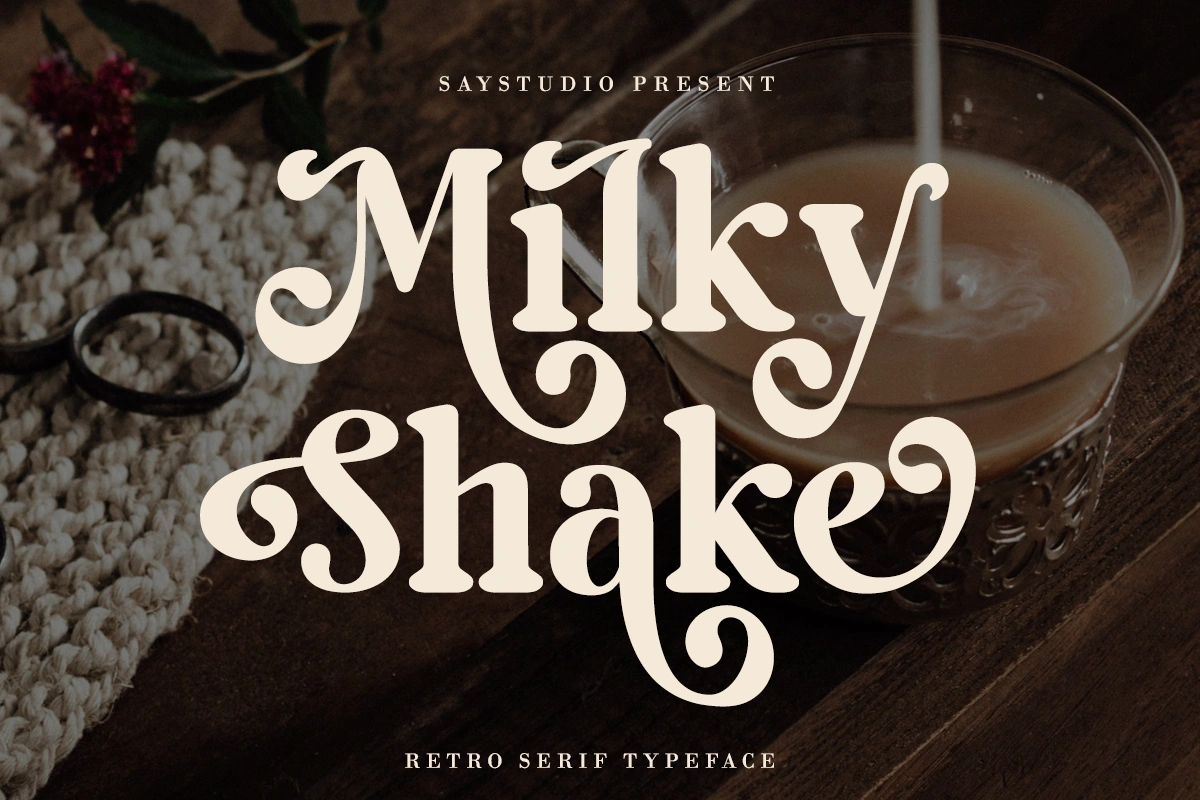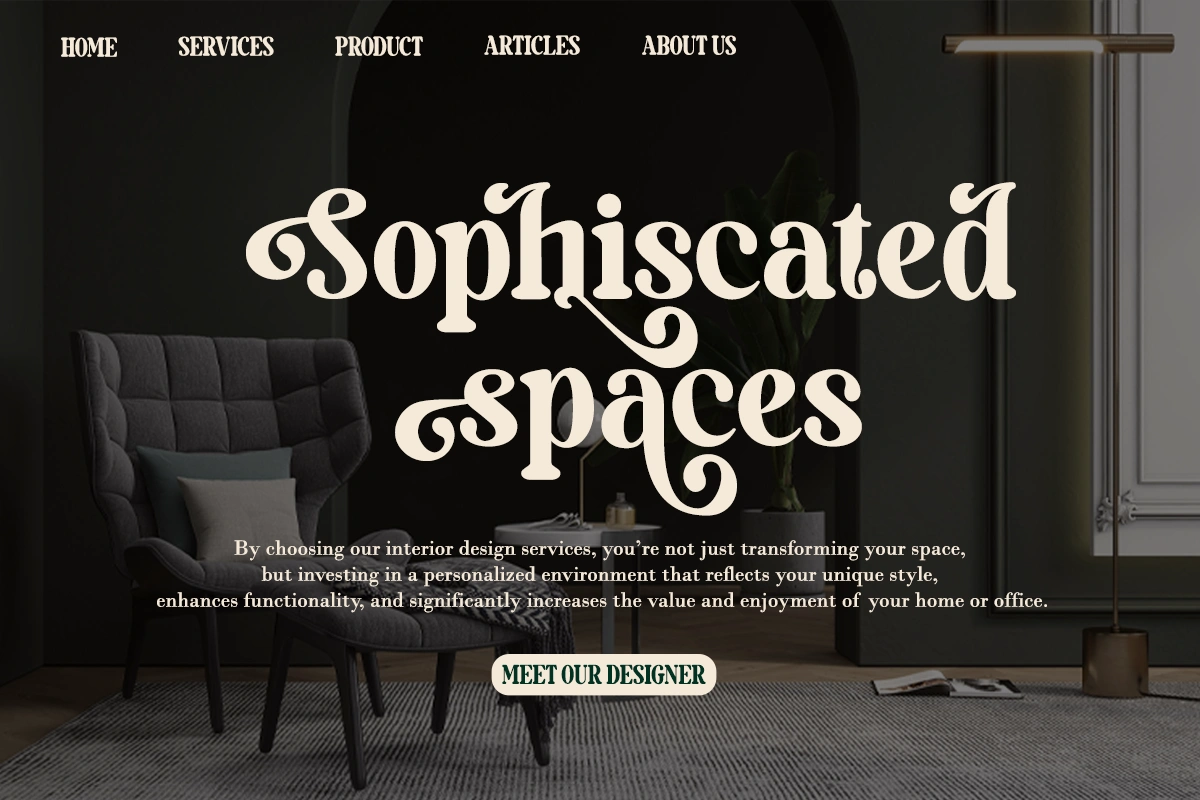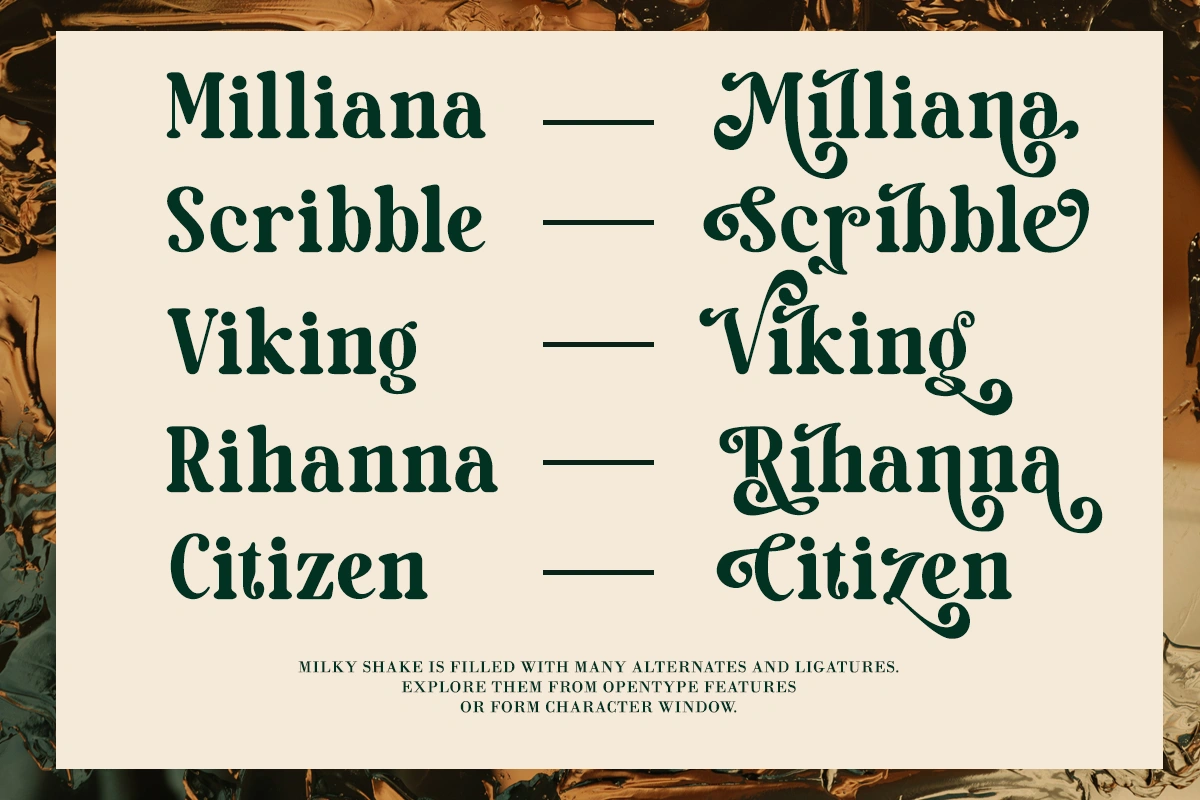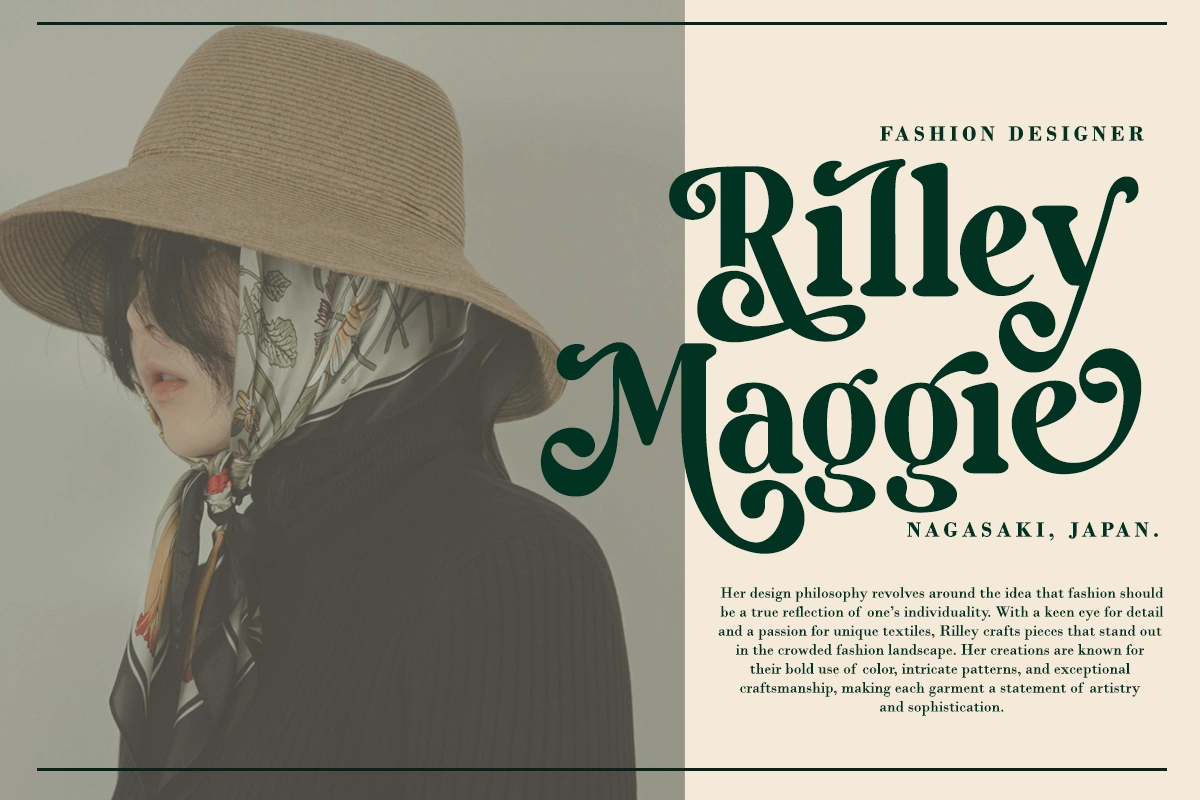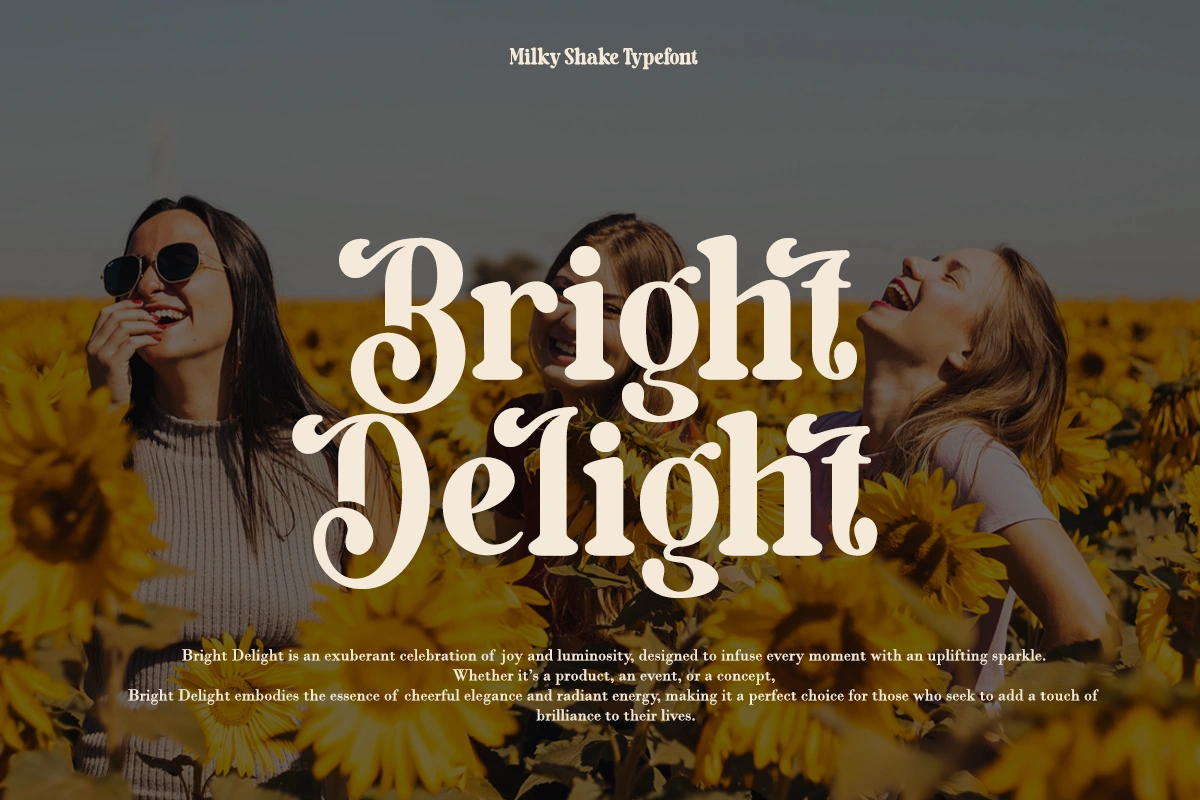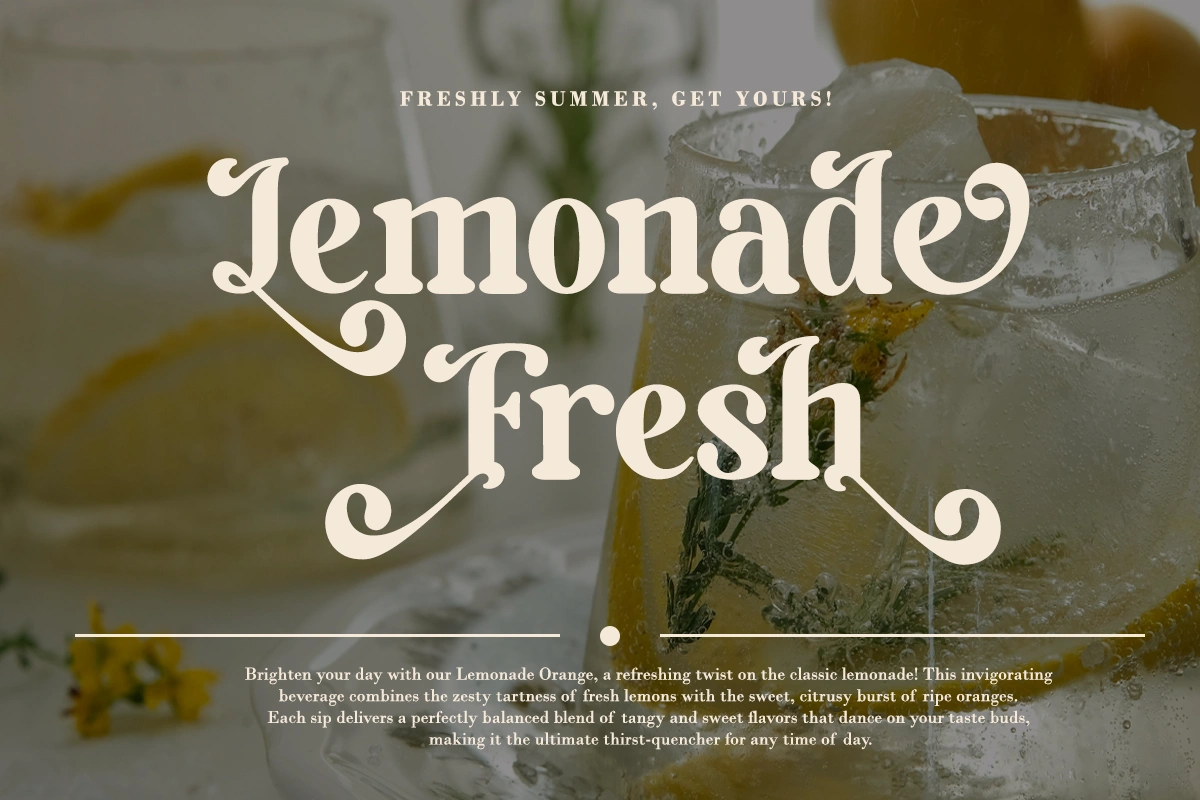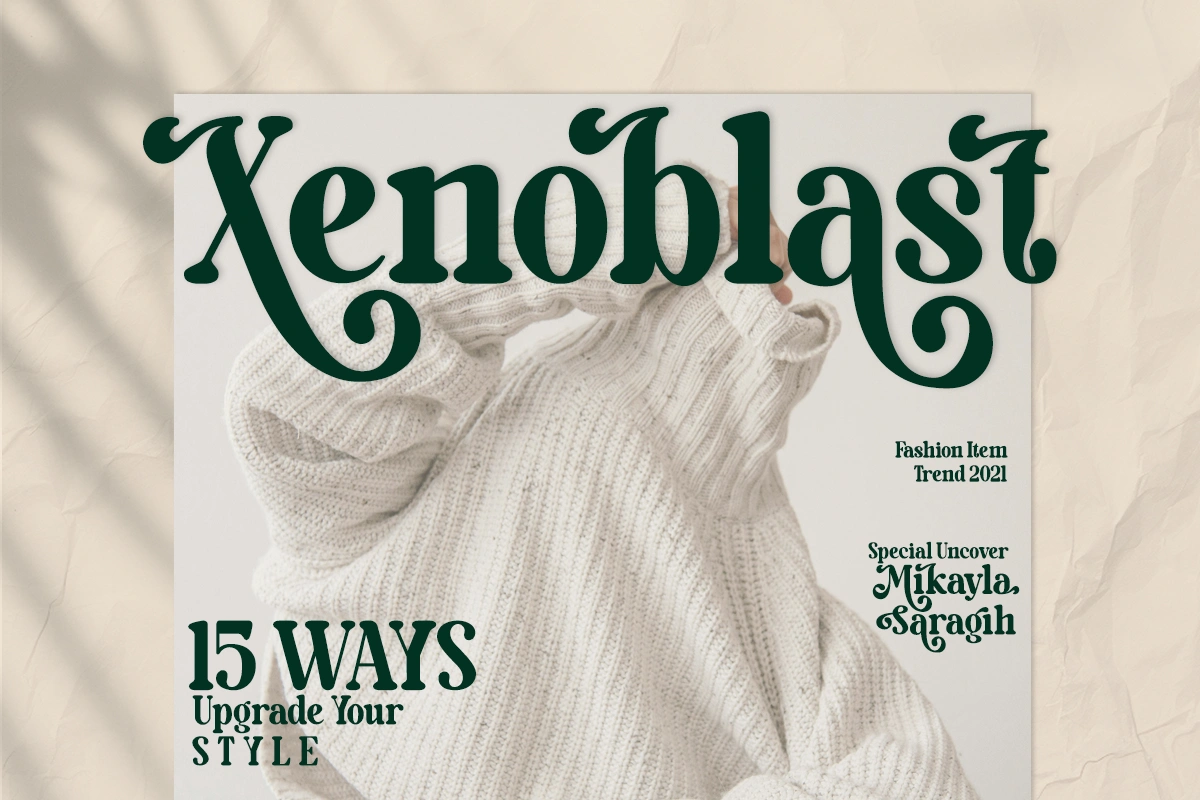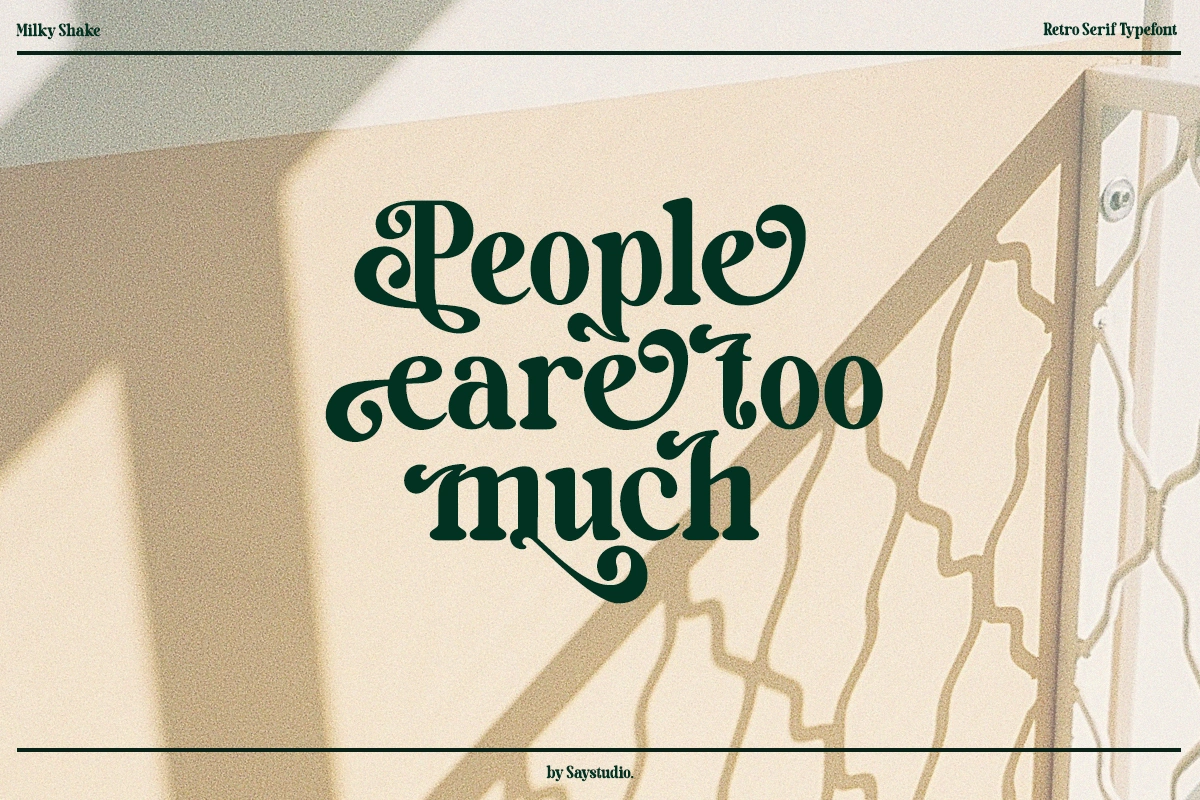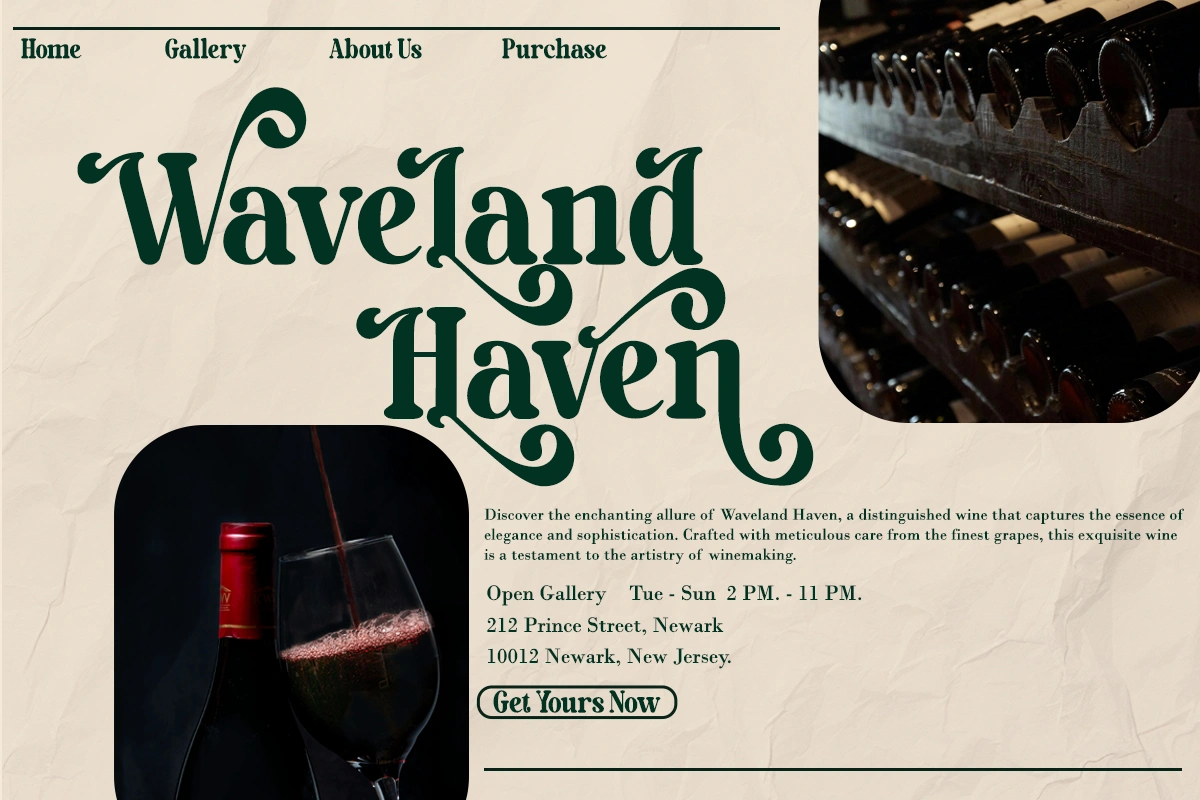
Milky Shake – Retro Serif Font
Milky Shake is retro vintage serif font style. playfully nostalgic and delivers an incredible vintage aesthetic. Use this serif font to add that special retro touch to any design idea. Equipped with Alternates and Ligatures and multi-lingual support, this font is ready to be used in any project. Milky Shake suitable for logotype, Stickers, Packaging design, Cricut Project, headlines, brand identity, t shirt or apparel industry, posters, magazines, books, YouTube, Instagram, websites, or any of your creative design projects.